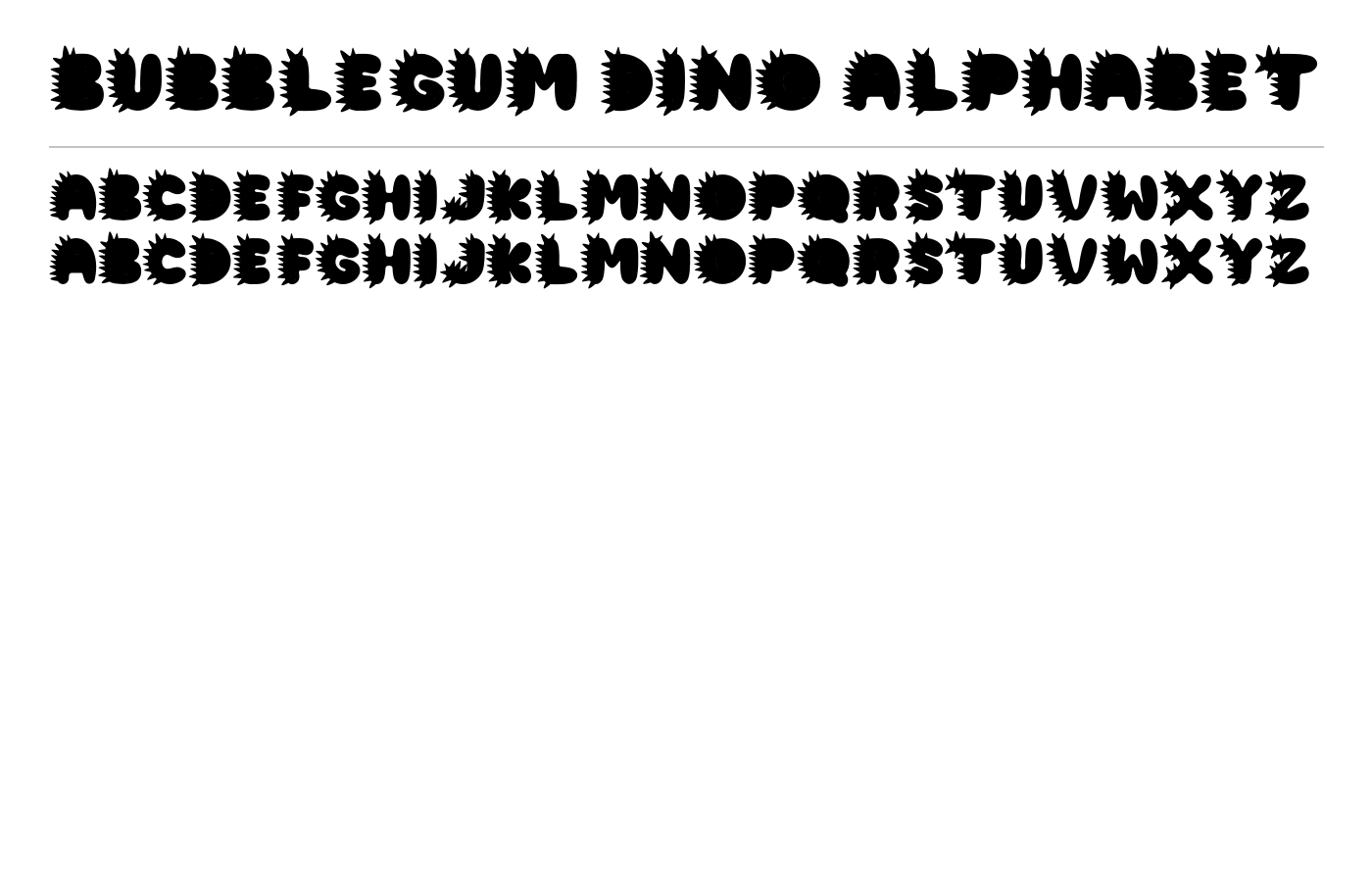
BubbleGum Dino Alphabet is a playful, bold display font with chunky letterforms adorned by dinosaur-inspired spikes and shapes, giving it a fun, whimsical character perfect for kid-friendly themes. Its heavy weight and quirky details make it ideal for eye-catching headlines, party invitations, and creative branding where a lively, energetic mood is desired. This font shines in designs needing a strong, youthful personality that stands out with its unique prehistoric charm.
BubbleGum Dino Alphabet Font
About BubbleGum Dino Alphabet Font